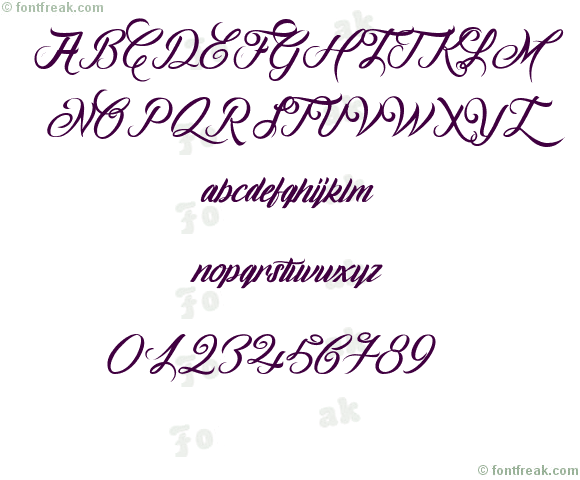
Ombeline Ludolphides
Ombeline Ludolphides by Agathe M. Joyce is a stunning script font that effortlessly combines elegance with a touch of whimsy. This font stands out with its flowing, cursive style, characterized by graceful curves and a slightly slanted structure. The stroke weight is varied, creating a dynamic contrast that adds depth and visual interest. The letters are well-spaced, allowing for readability while maintaining an artistic flair. This makes Ombeline Ludolphides not just a visually appealing choice, but also a practical one for various applications.
Ideal for wedding invitations, this font brings a romantic and personal touch to any special occasion. Its artistic style also makes it suitable for greeting cards, where heartfelt messages can be beautifully expressed. Additionally, restaurant menus can benefit from this font, as it adds a sophisticated yet approachable element, enticing diners with its elegant presentation. Graphic designers looking to create eye-catching branding materials will find Ombeline Ludolphides particularly useful, as it can convey a sense of luxury and creativity. Content creators who want to enhance their visual storytelling will appreciate the unique character this font adds to their projects.
The target audience for Ombeline Ludolphides includes graphic designers, small business owners, and content creators who seek a distinctive typographic style that elevates their work. By offering a free download, this font is accessible to anyone wishing to incorporate its charm into their designs.
What sets the Ombeline Ludolphides font apart is its unique blend of sophistication and playfulness, making it a versatile choice for various design projects. Whether you’re crafting an invitation or developing branding materials, this font adds a special touch that resonates with viewers. Discover the beauty of Ombeline Ludolphides font free download and transform your designs today.